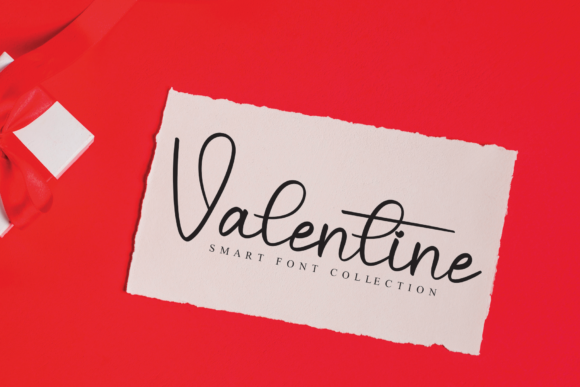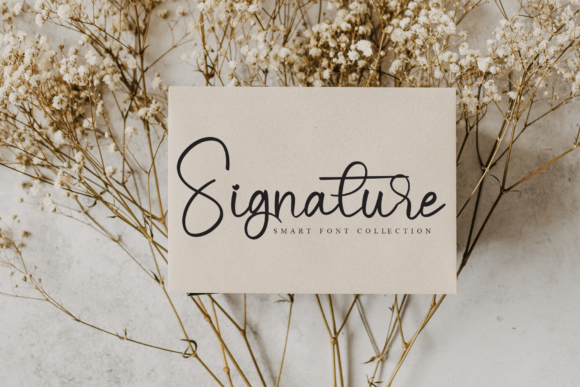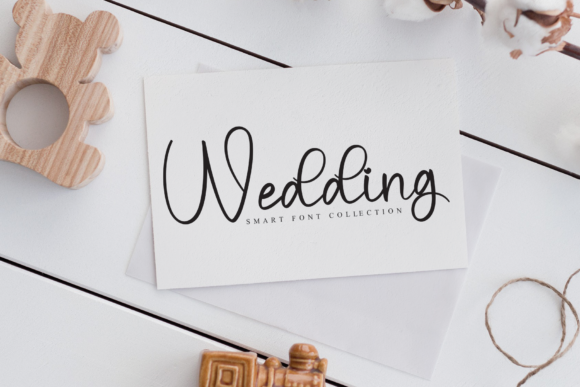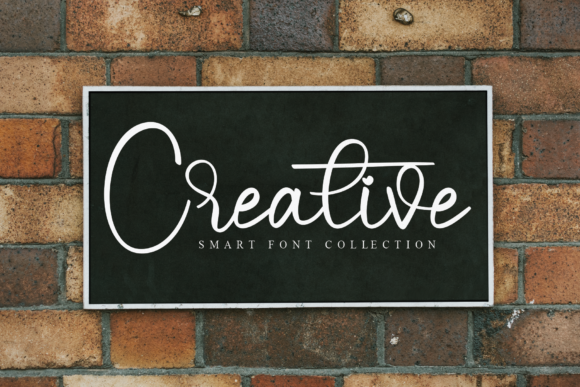
Discover the Charm of Berlin Font: A Timeless Handwritten Delight
Are you a designer or crafter looking for a font that can add a touch of elegance and personality to your creations? Look no further than the Berlin Font, a lovely and timeless handwritten font that is sure to make your designs come alive. In this article, we’ll dive into the world of Berlin Font and explore its unique features, uses, and benefits.
A Unique and Beautiful Touch
One of the standout features of Berlin Font is its unique and beautiful touch. Every letter has been carefully crafted to have its own distinct character, making it perfect for creating eye-catching logos, branding, and quotes. The font’s handwritten style gives it a personal and organic feel that is sure to resonate with your audience.
Berlin Font is an excellent choice for designers and crafters who want to add a touch of sophistication and elegance to their work. Whether you’re creating a logo, branding materials, or social media graphics, this font is sure to make your designs stand out. Its versatility and legibility make it perfect for a wide range of applications, from digital media to print materials.
Key Features of Berlin Font
- Timeless handwritten style: Berlin Font has a classic, timeless look that will never go out of style.
- Unique letterforms: Every letter has a unique and beautiful touch, making it perfect for creating eye-catching designs.
- Highly legible: The font is easy to read, making it perfect for body text, headings, and titles.
- Versatile: Berlin Font can be used for a wide range of applications, from digital media to print materials.
Uses for Berlin Font
Berlin Font is an incredibly versatile font that can be used for a wide range of applications. Here are some ideas to get you started:
- Logo design: Create a stunning logo for your business or brand with Berlin Font.
- Branding materials: Use Berlin Font to create consistent branding across all your marketing materials.
- Social media graphics: Add a touch of elegance to your social media graphics with Berlin Font.
- Quotes and posters: Create eye-catching quotes and posters with Berlin Font.
- Wedding and event invitations: Use Berlin Font to create beautiful and elegant wedding and event invitations.
Why Choose Berlin Font?
So why choose Berlin Font over other fonts? Here are just a few reasons:
- Unique and distinctive: Berlin Font has a unique and distinctive style that will set you apart from the crowd.
- Elegant and sophisticated: The font has an elegant and sophisticated feel that is perfect for high-end brands and designs.
- High-quality: The font is high-quality and has been carefully crafted to ensure that it looks great in any application.
In conclusion, Berlin Font is a timeless handwritten font that is perfect for designers and crafters who want to add a touch of elegance and personality to their creations. With its unique and beautiful touch, versatility, and legibility, Berlin Font is an excellent choice for a wide range of applications. Whether you’re creating logos, branding materials, or social media graphics, Berlin Font is sure to make your designs come alive!